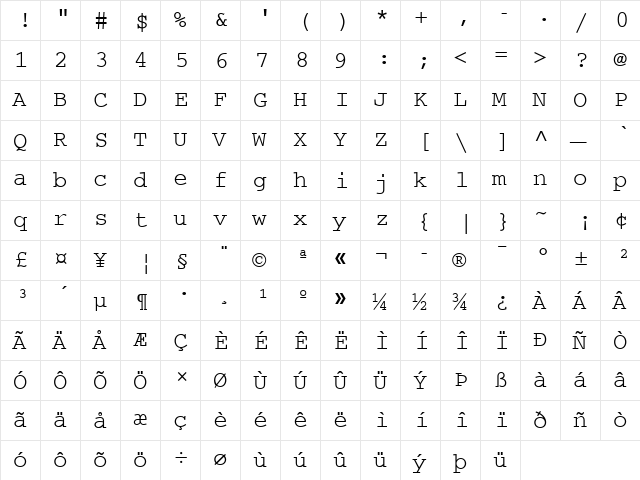
Ethiopic Fantuwua Regular
Design Context for Ethiopic Fantuwua Typeface
Ethiopic Fantuwua is a composed and adaptable typeface that performs quietly and consistently across a wide range of design contexts.